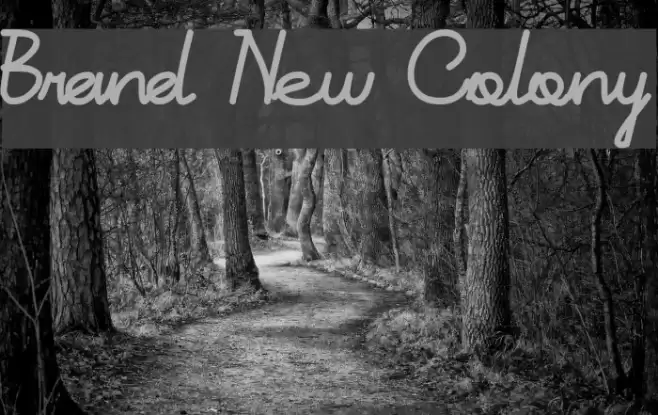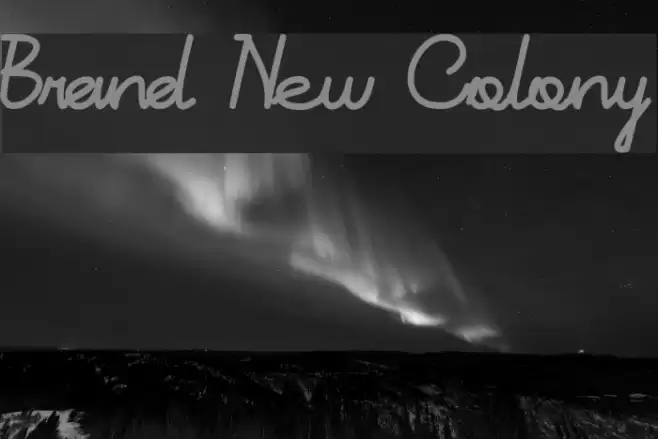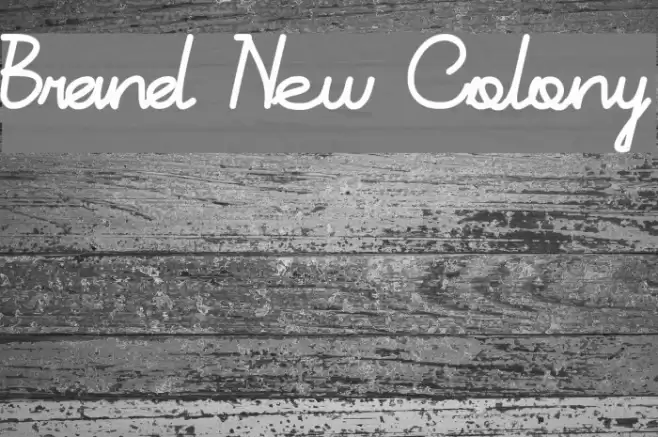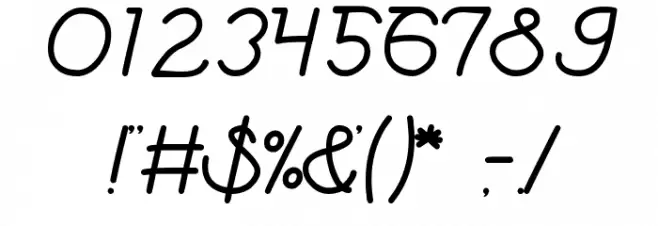
Brand New Colony Font
Brand New Colony Description
This font features a playful and casual handwritten style, characterized by its smooth, flowing lines and slightly irregular shapes. The uppercase letters are bold and confident, while the lowercase letters maintain a consistent, connected script that mimics natural handwriting. The numerals are clear and legible, with a slight slant that adds to the overall dynamic feel. Special characters are integrated seamlessly, maintaining the font's cohesive look. This font exudes a friendly and approachable vibe, making it suitable for a variety of creative projects.
A playful, handwritten script font with smooth, flowing lines from Uncategorized fonts.
- Proposed Projects: Ideal for greeting cards, invitations, personal branding, and social media graphics.
- Overall Style: Casual
- Use Case: Logos, Headlines, Invitations